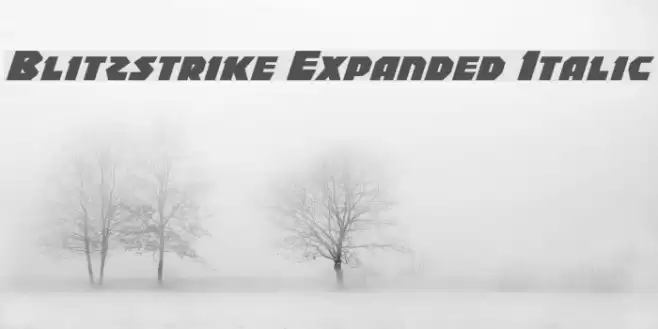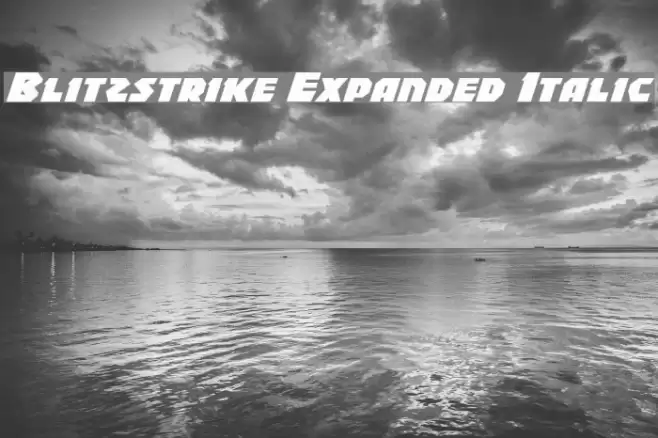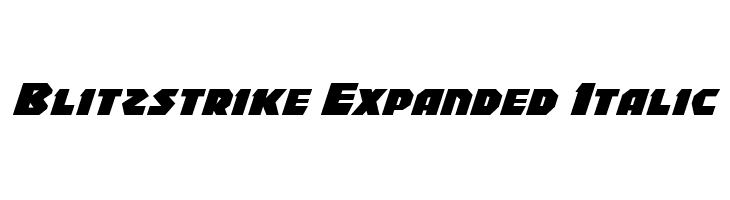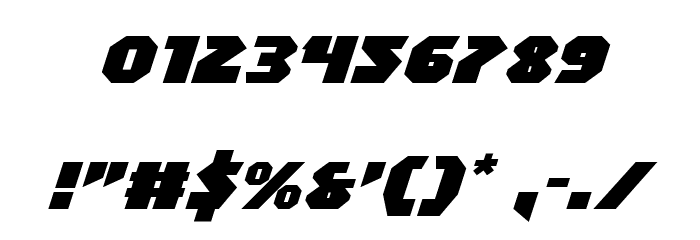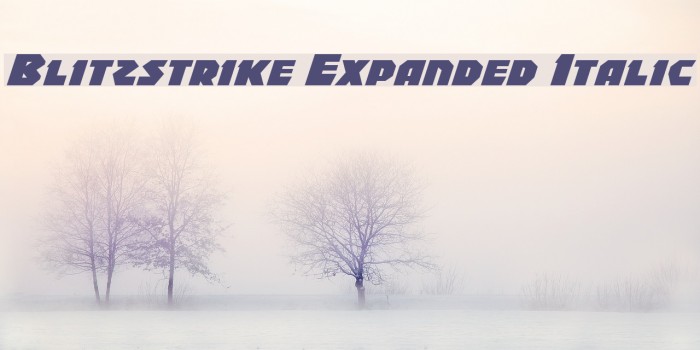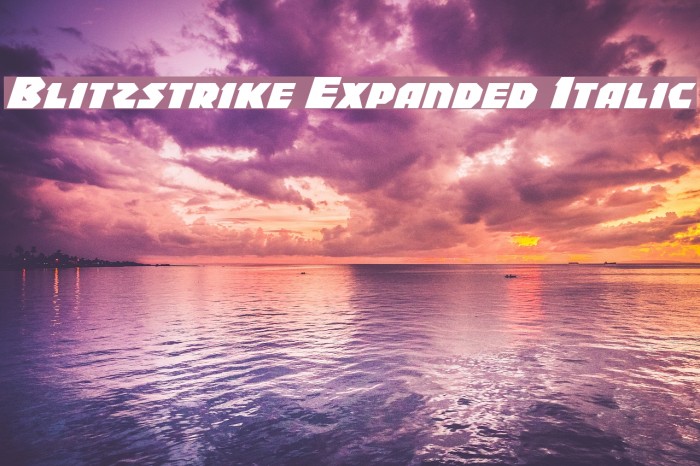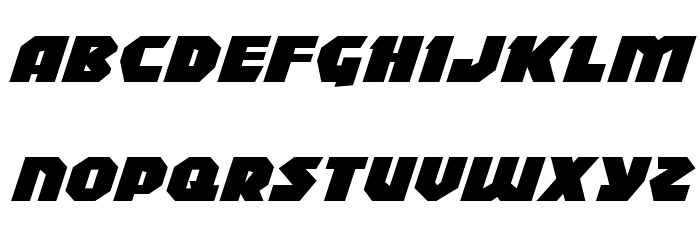
Blitzstrike Expanded Italic Font
Blitzstrike Expanded Italic Description
This font features a bold, dynamic style with a distinctly angular and geometric design. The characters are expanded and italicized, giving them a sense of motion and energy. The sharp edges and slanted orientation contribute to a futuristic and aggressive appearance, making it ideal for attention-grabbing headlines or branding that requires a strong visual impact. The uppercase and lowercase letters maintain a consistent style, with numerals and special characters following the same bold and angular theme.
A bold, angular, and italicized font with a dynamic and futuristic style from Uncategorized fonts.
- Proposed Projects: Ideal for sports branding, video game titles, action movie posters, and dynamic logo designs.